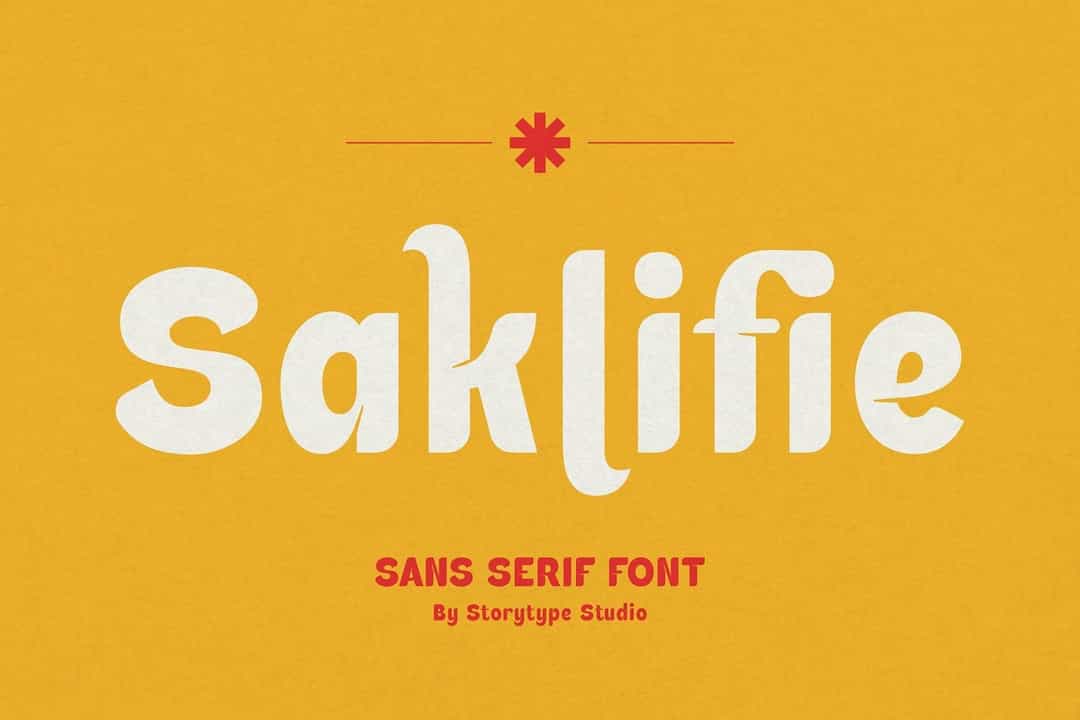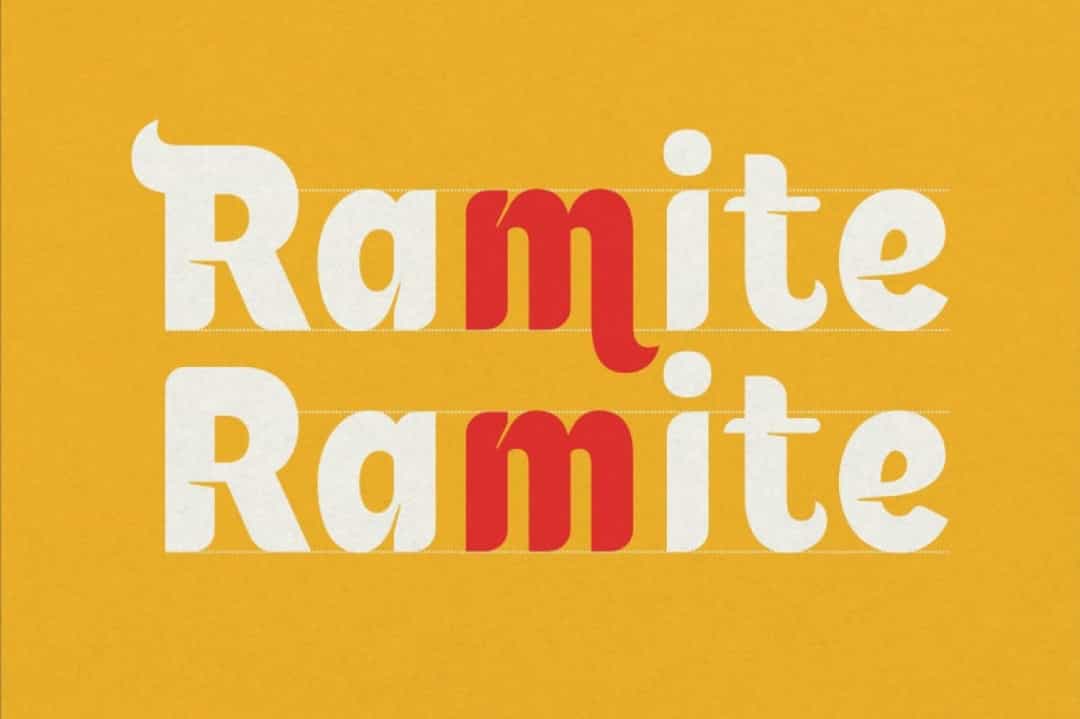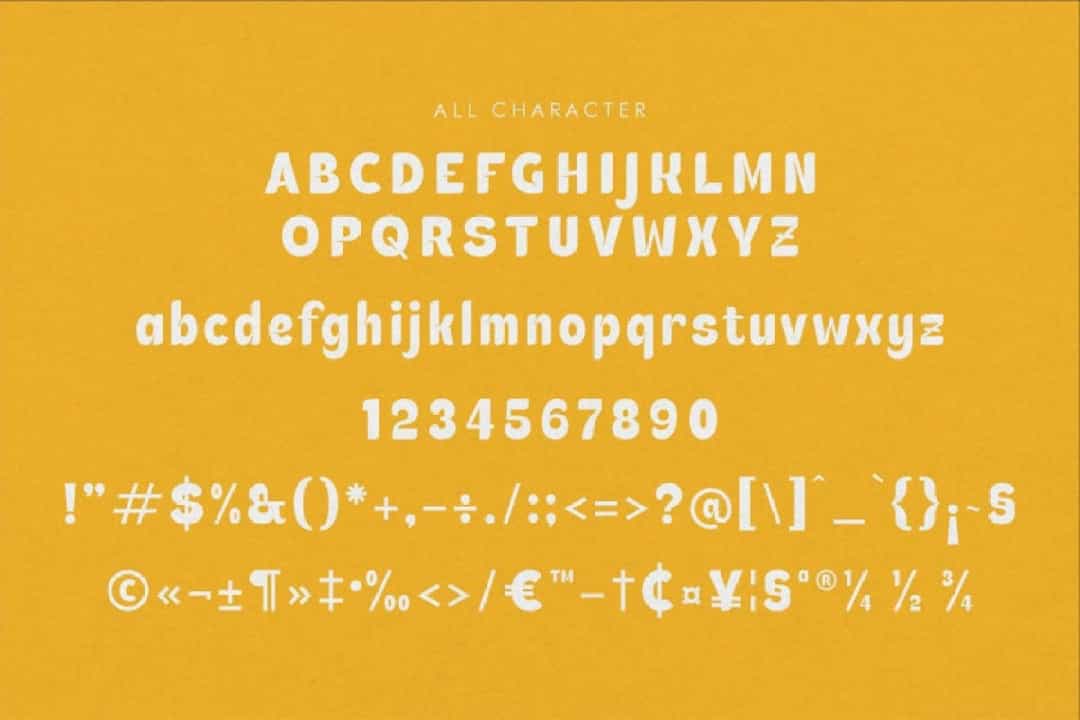
Saklifie is a modern yet classical sans serif font with its signature style and contemporary appearance, perfect for creating elegant logos, movie or book title designs, fashion brand clothing designs, magazine letters, quotes or any other creative projects that require class and elegance.